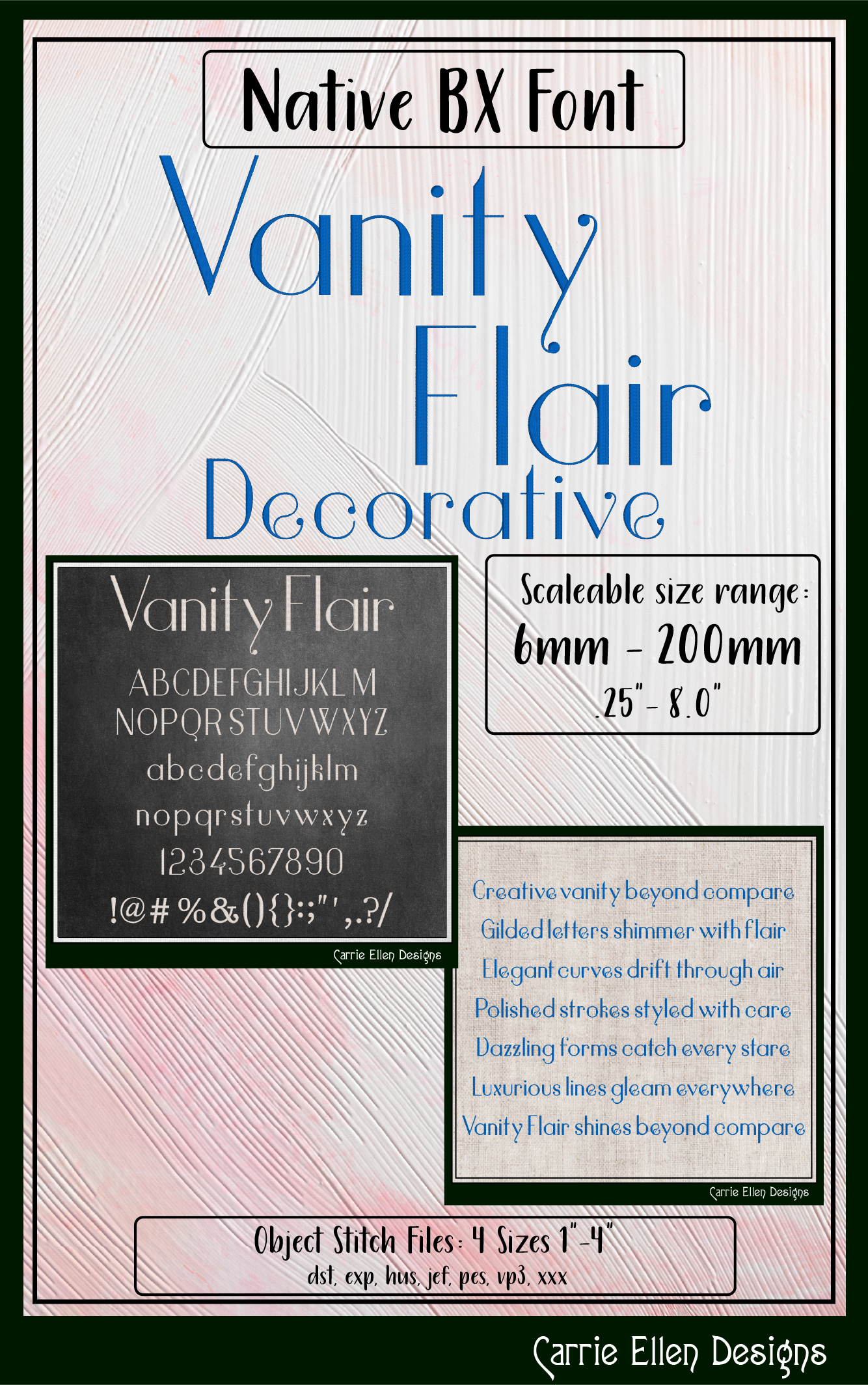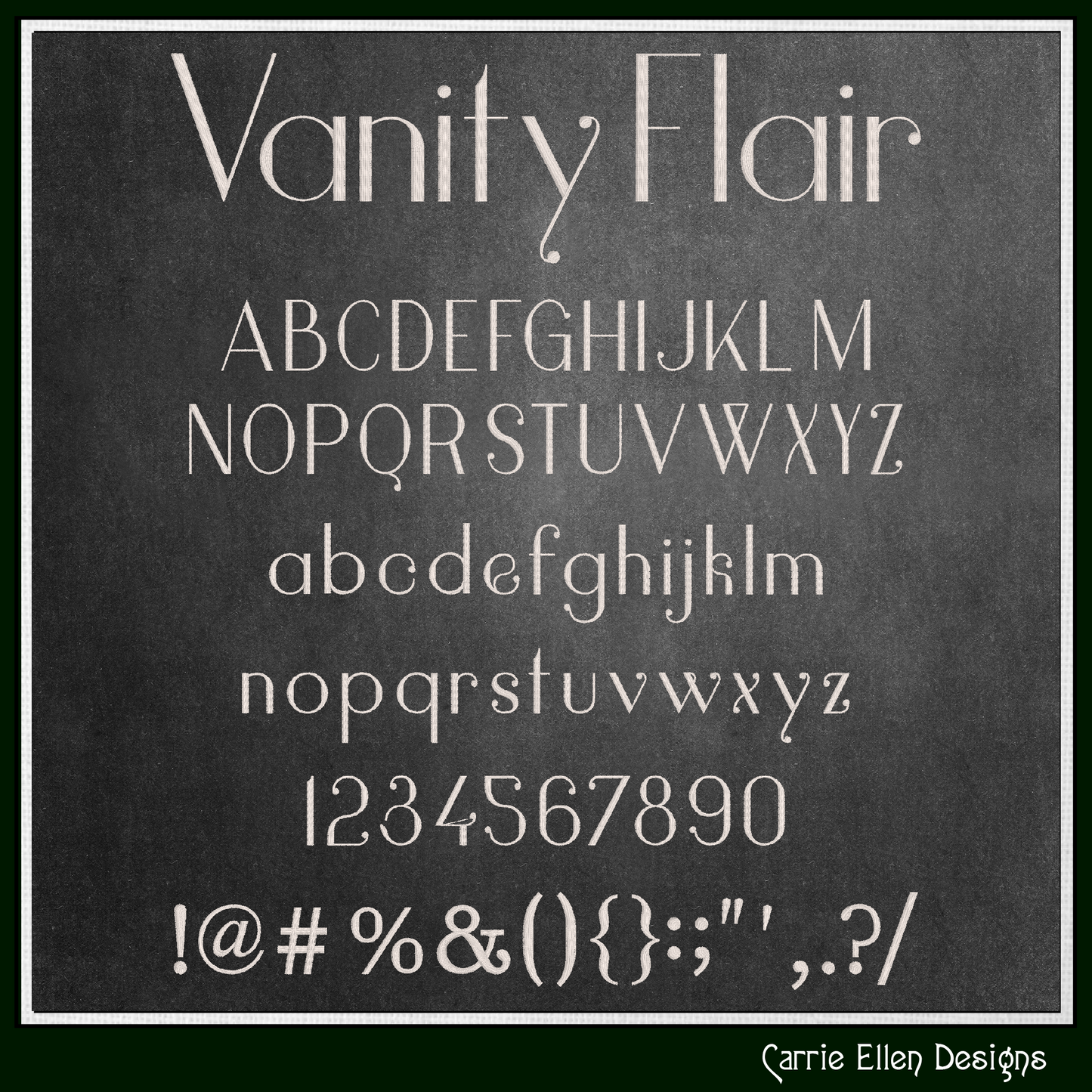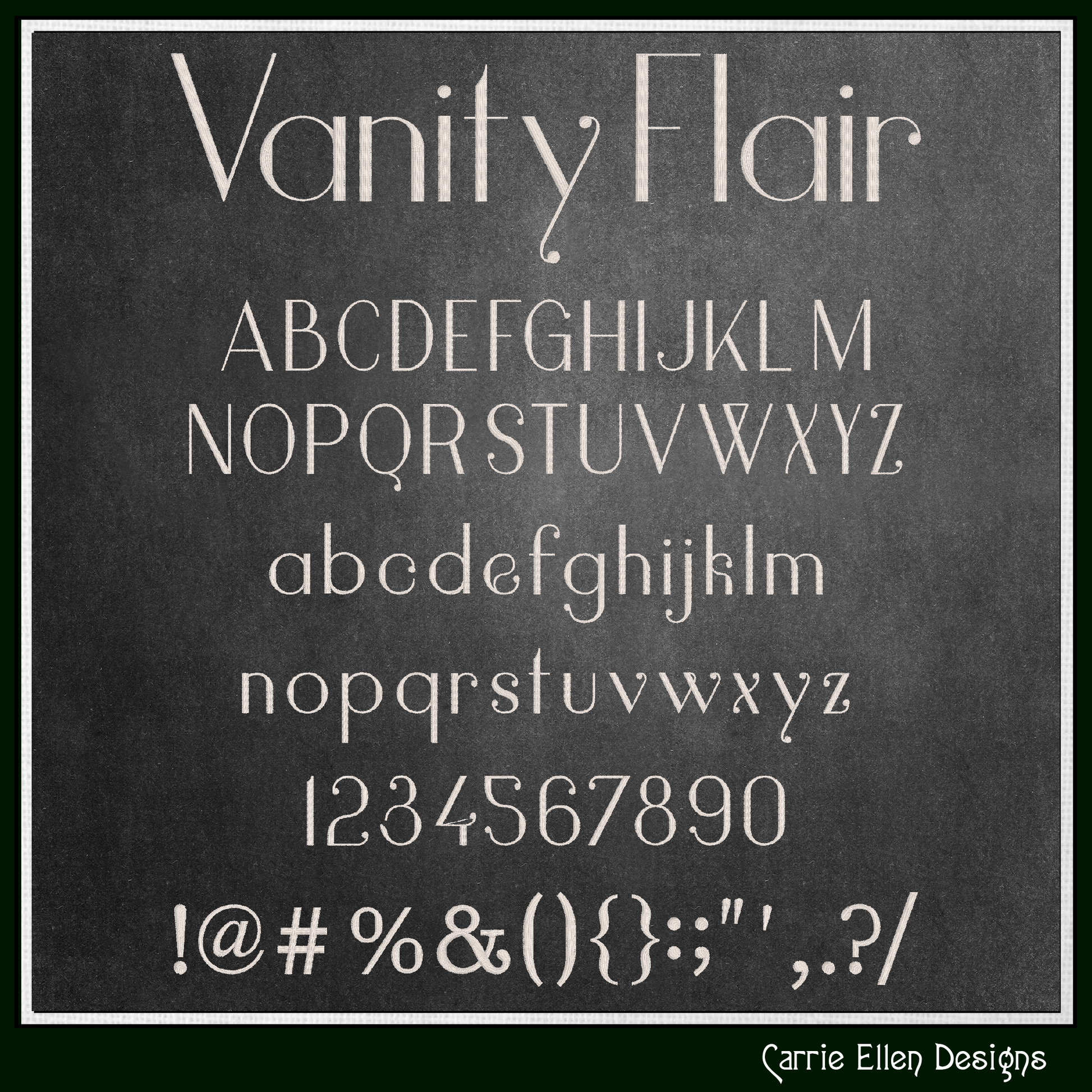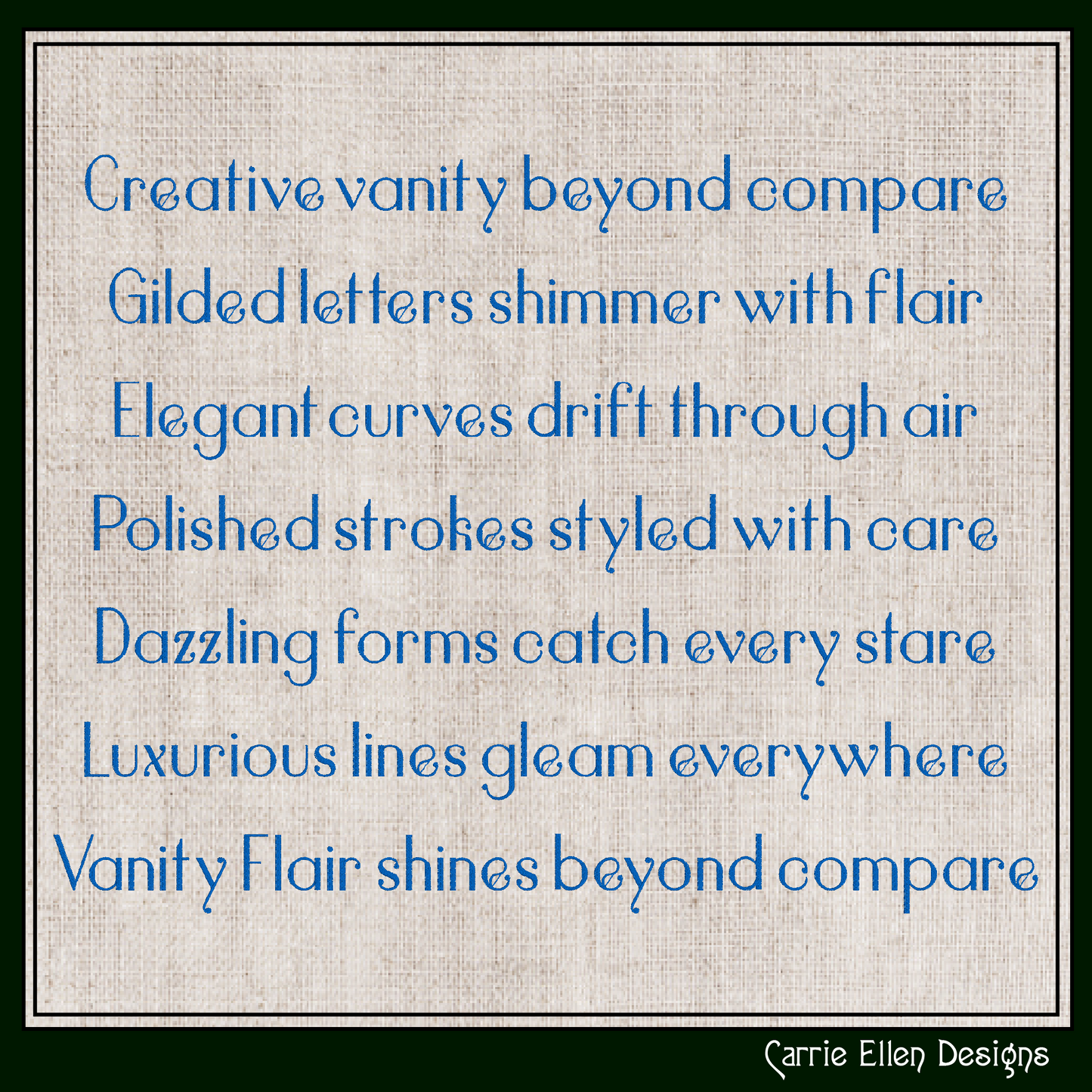
Where elegance meets personality ✨
The Vanity Flair Decorative BX Font is a stunning machine embroidery font designed to bring a touch of sophistication and artistic flair to your projects. Featuring stylish curves and decorative elements, this font adds a bold, eye-catching finish to any design.
Perfect for boutique items, personalized gifts, and statement embroidery, this font is ideal for makers who want their work to stand out.
Font Features
• Clean satin stitch columns
• Balanced stitch density for smooth results
• Easy keyboard-style lettering
• Great for personalization and monograms
- Consistent styling across all characters